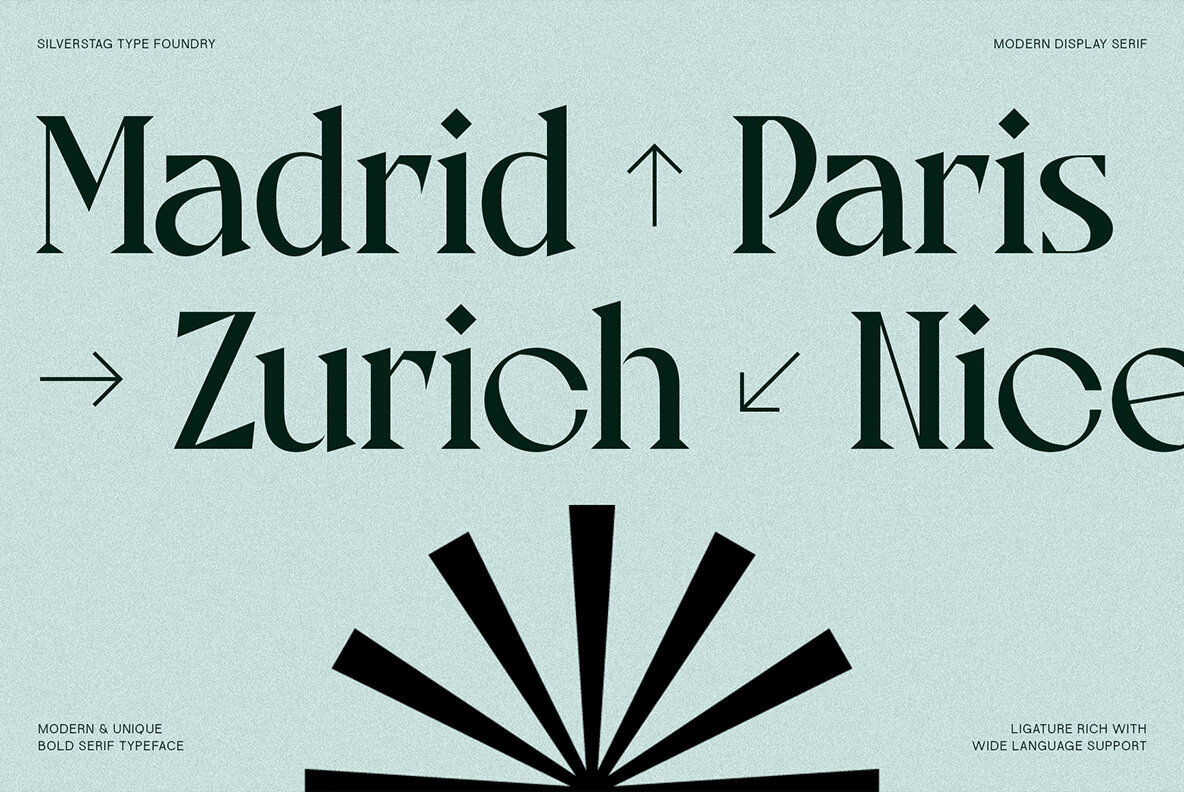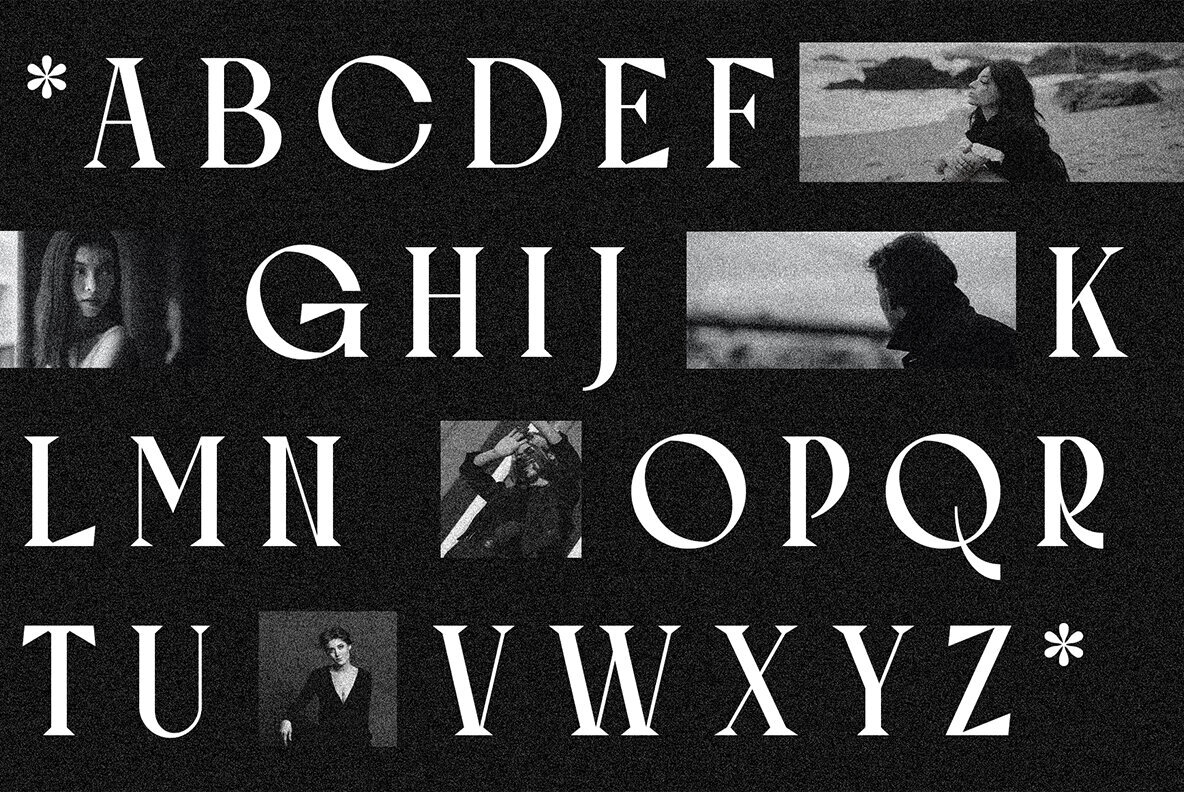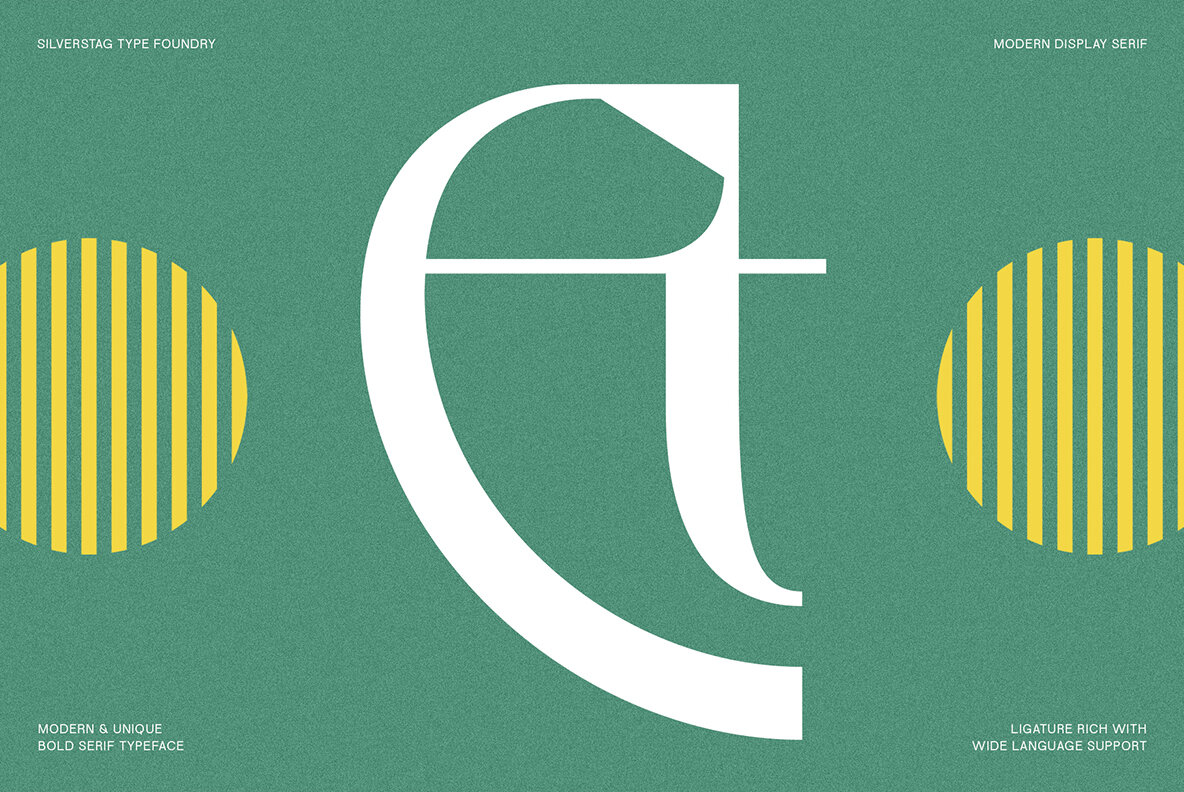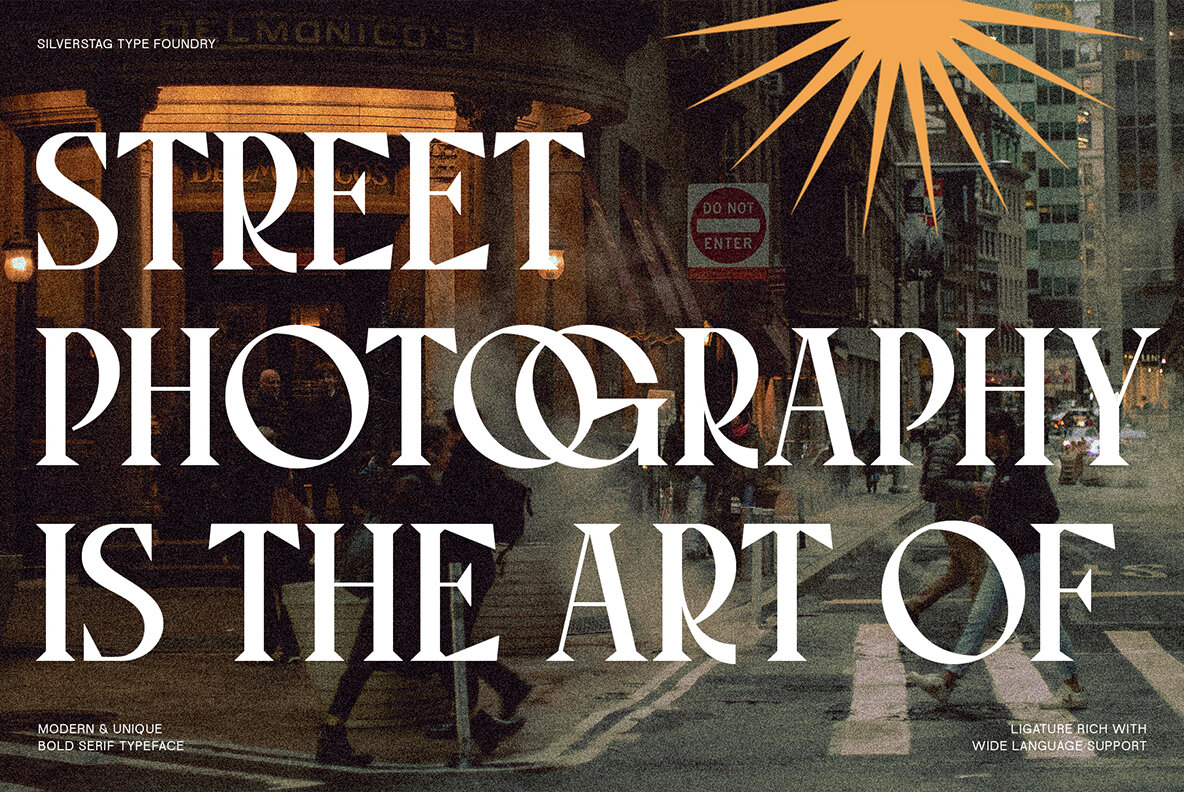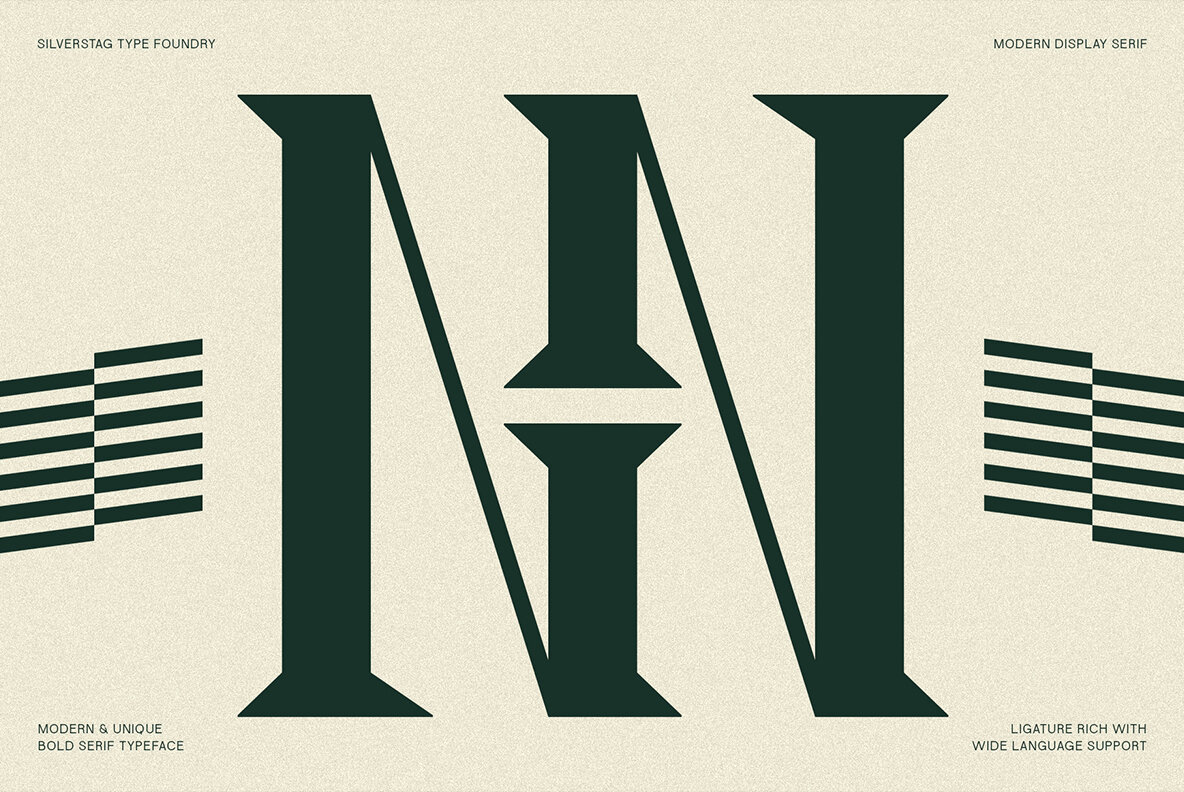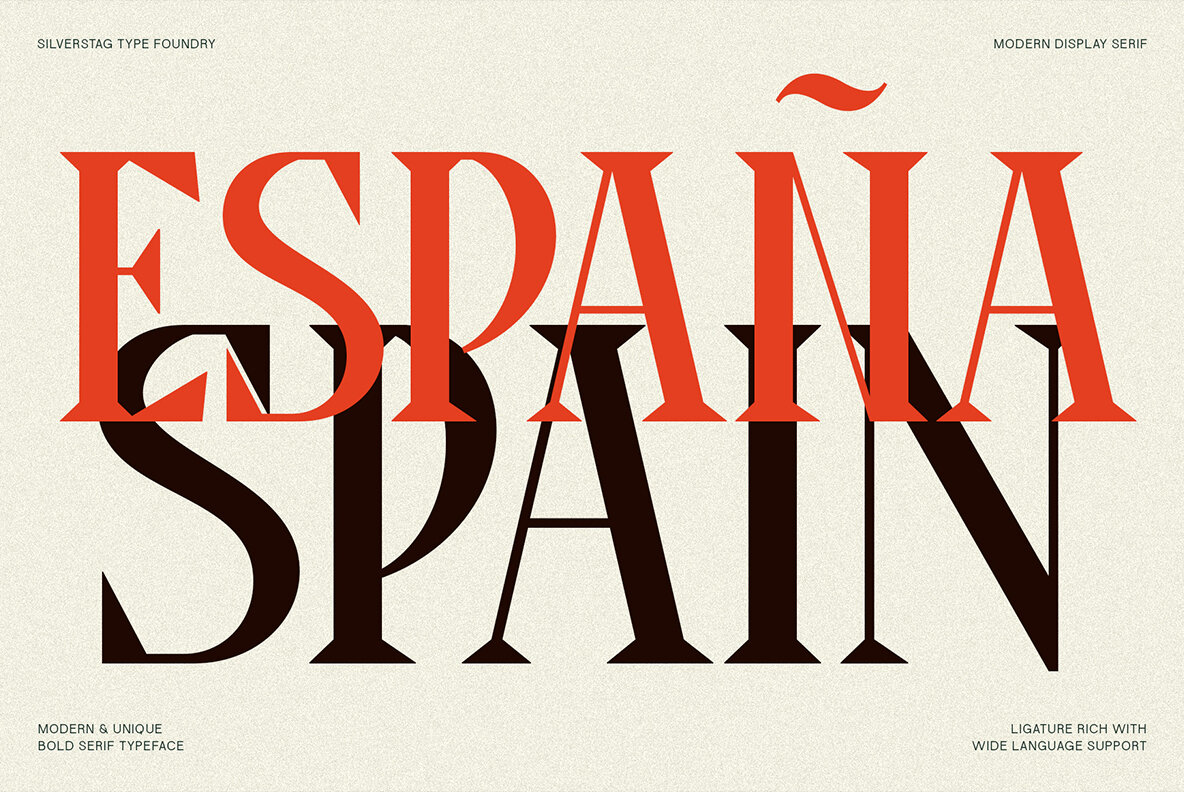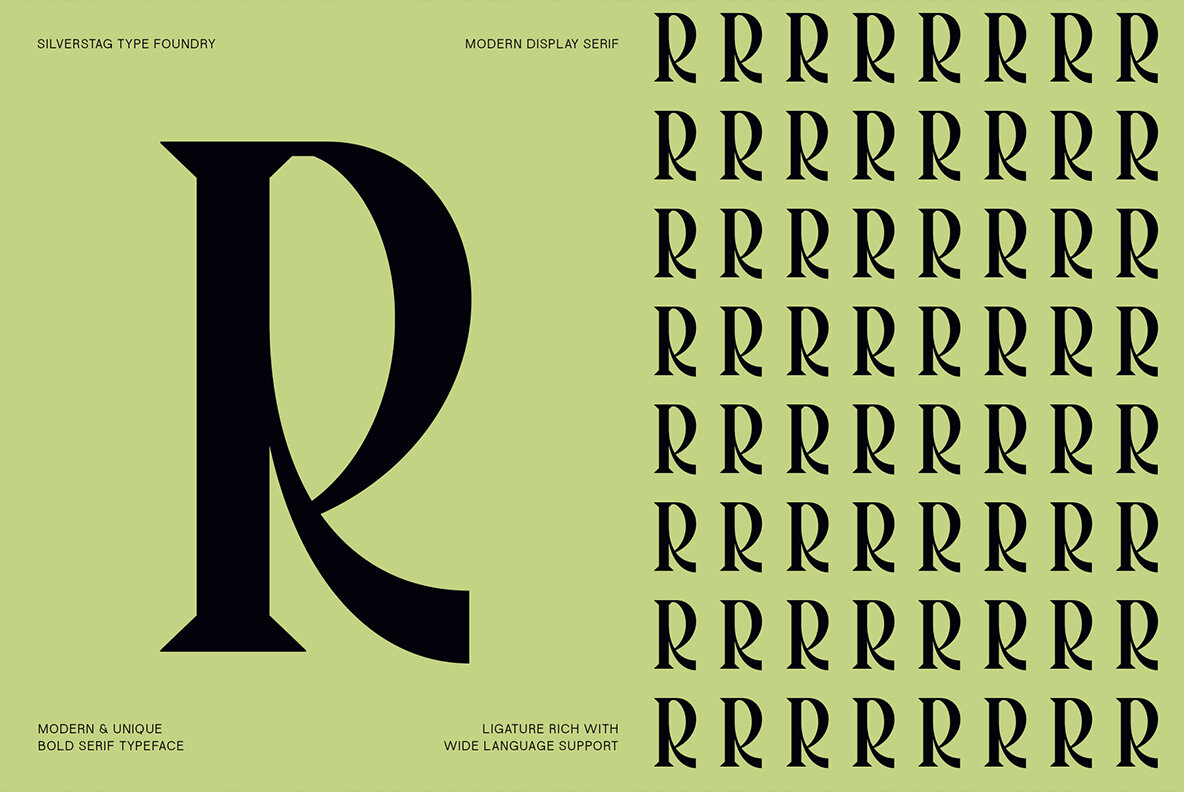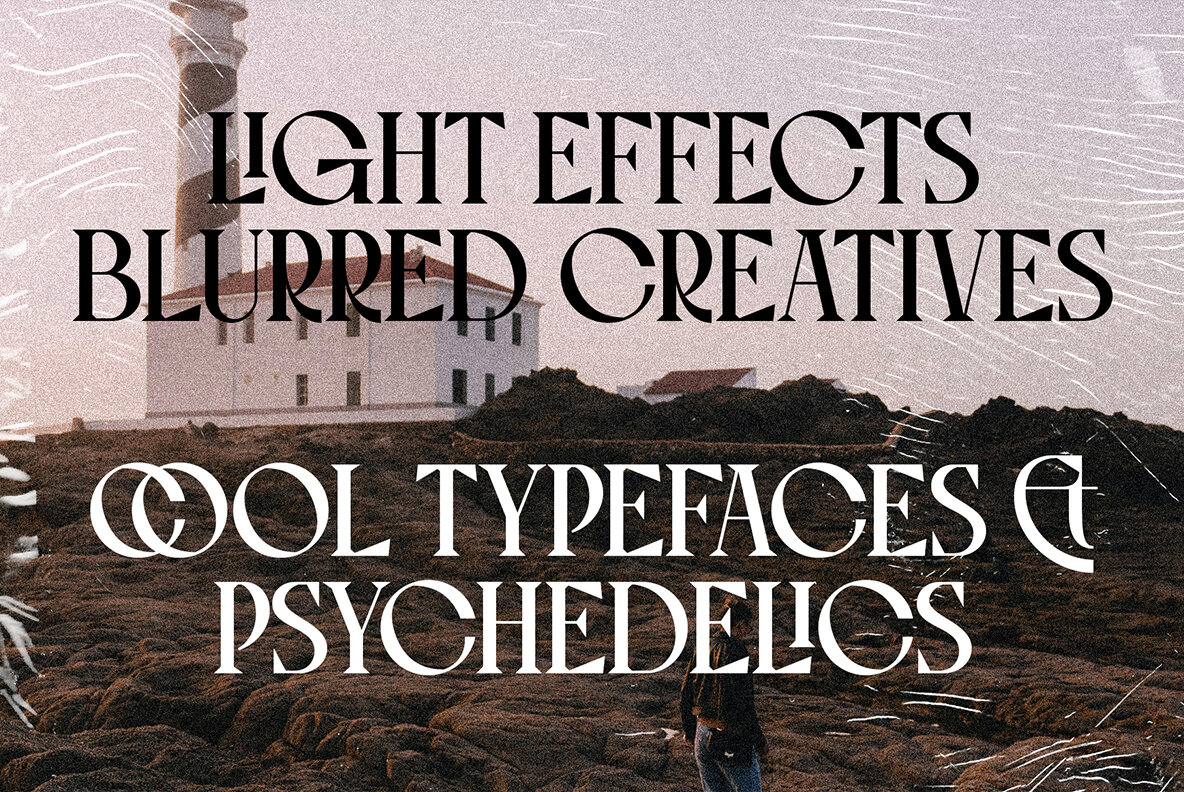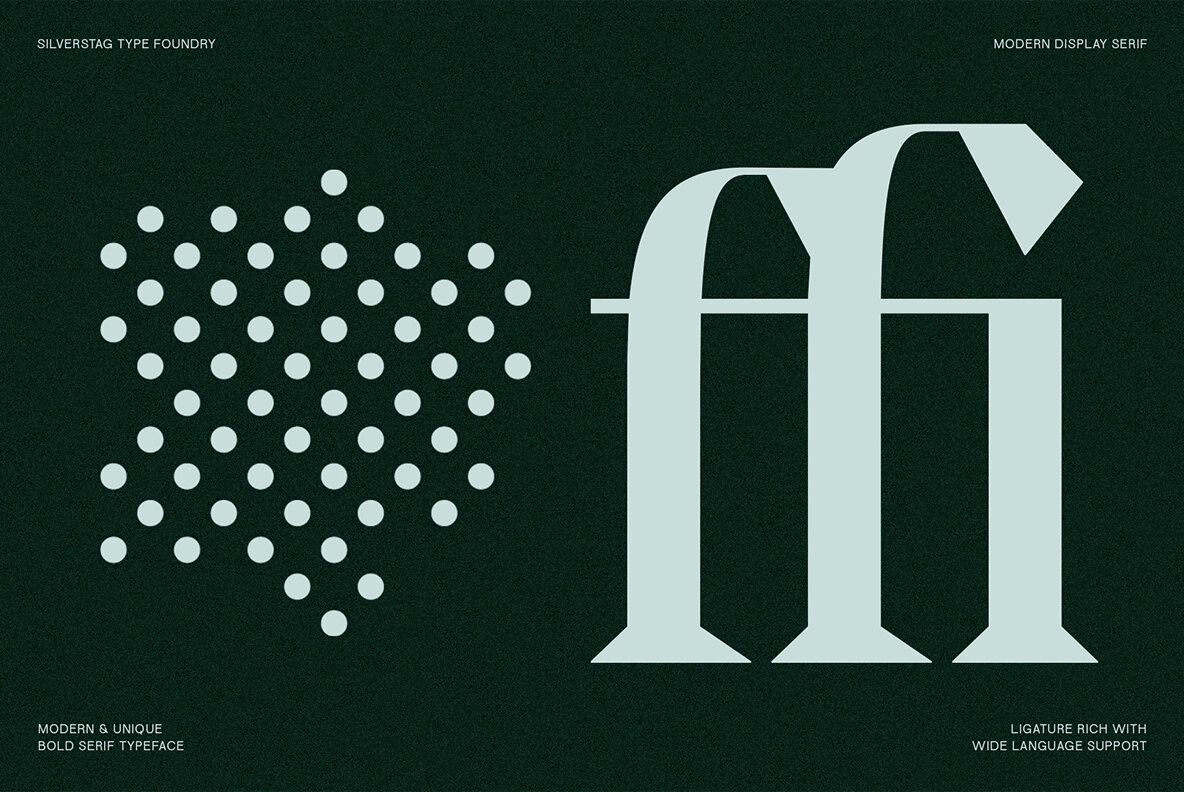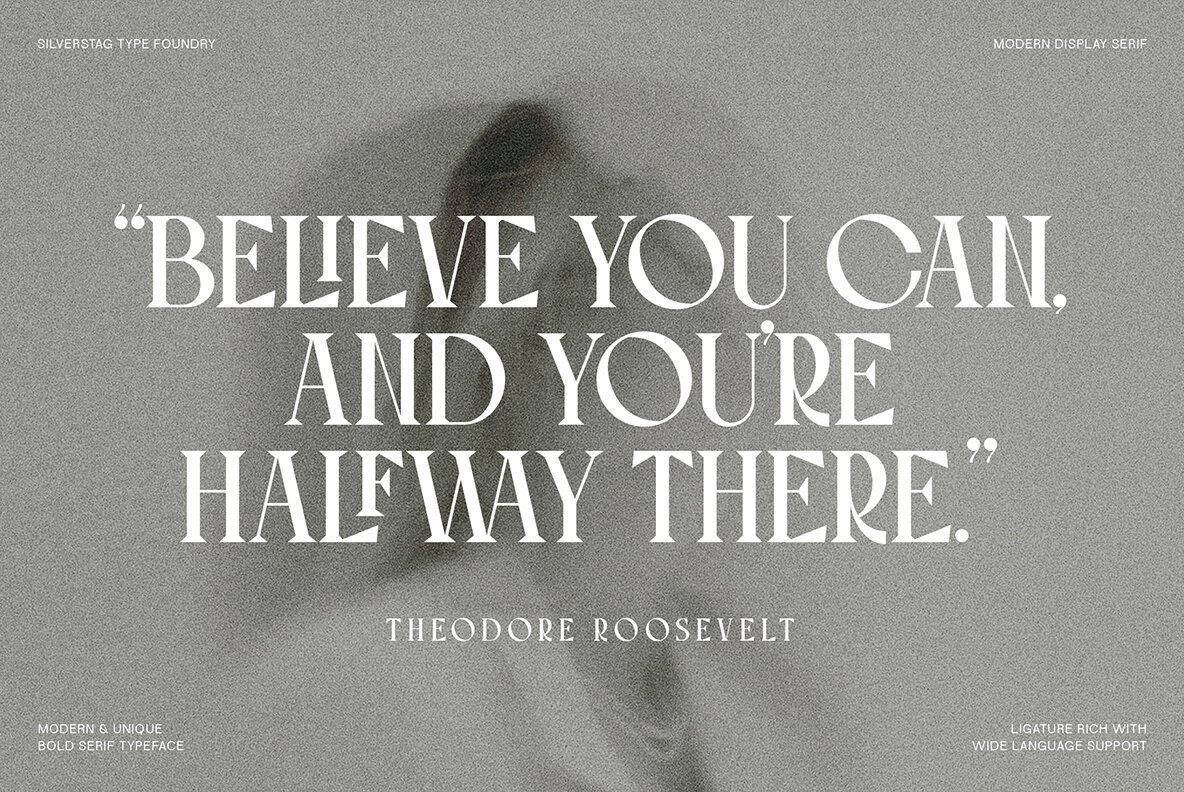
Tangled Rockaway Font
TangledRockaway Regular
Step back in time with Tangled Rockaway, a captivating serif font that seamlessly blends vintage charm with a contemporary twist. This meticulously crafted typeface evokes the nostalgia of classic printing presses while embracing the sharp lines and bold character of modern design. Tangled Rockaway features 48 unique ligatures that add a touch of elegance and sophistication to any project. Whether you're designing a logo, crafting an invitation, or creating eye-catching headlines, these ligatures will elevate your work and create a truly memorable visual experience. With support for over 90 languages, Tangled Rockaway is the perfect choice for international projects and multilingual designs. Its versatile nature allows it to adapt effortlessly to a variety of creative endeavors, from branding and packaging to editorial layouts and advertising campaigns. Whether you're a seasoned designer or a budding creative enthusiast, Tangled Rockaway empowers you to infuse your work with timeless elegance and a touch of vintage allure. Embrace the sharp serifs, embrace the unique ligatures, and watch your designs come to life with a distinct and unforgettable personality.Introducing Tangled Rockaway: A Vintage Serif Font with a Modern Edge